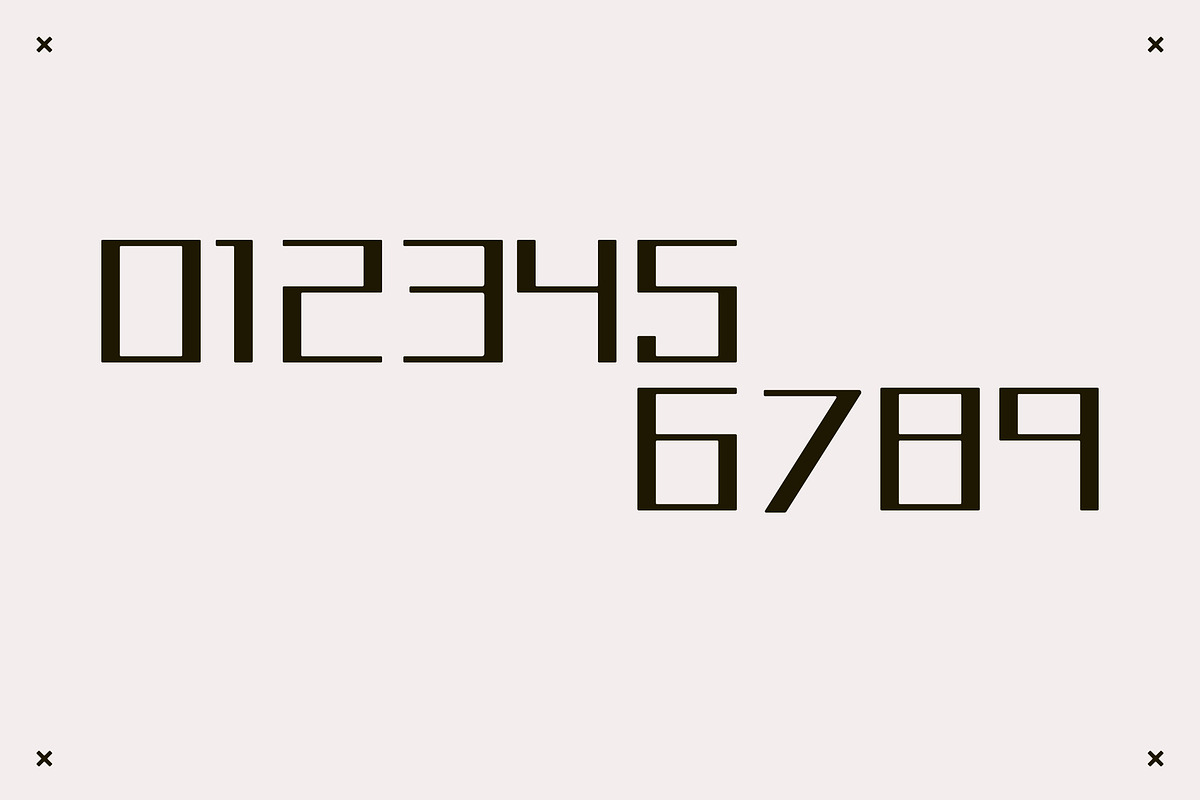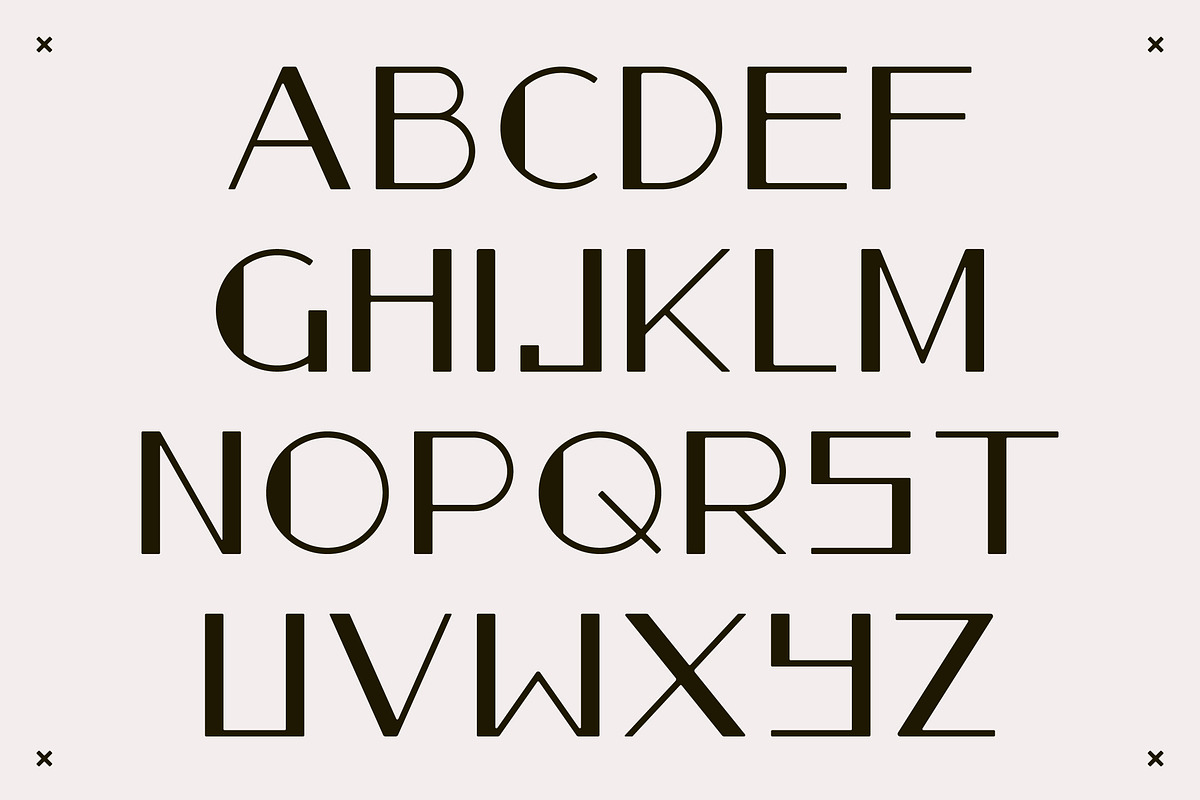
Late - A Sans Serif Font
Late - A Sans Serif Font by Kritzmire is a font selected for branding, posters, packaging, typography.
- It contains an uppercase alphabet with numbers.
Why Late - A Sans Serif Font is worth a look
Late - A Sans Serif Font by Kritzmire fits naturally into Branding, posters, packaging, typography.